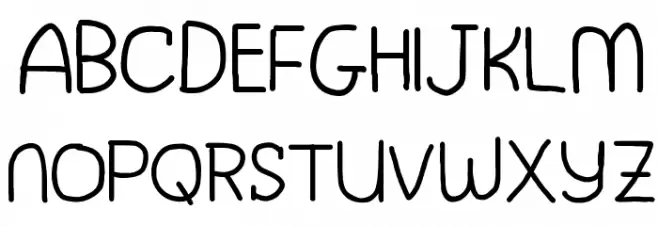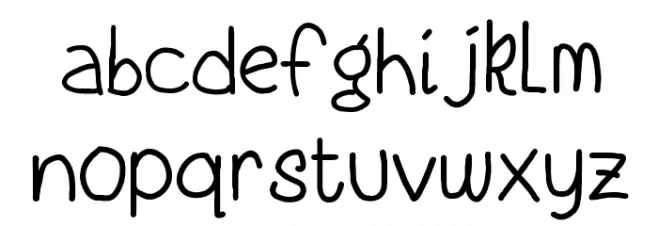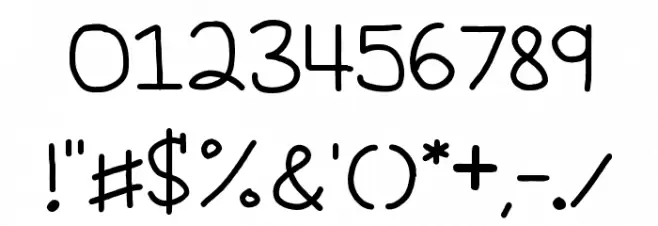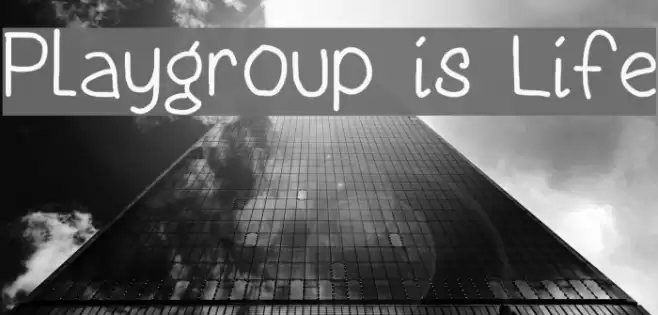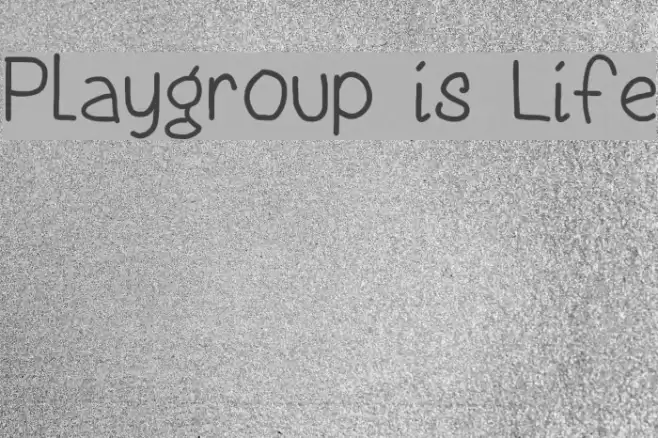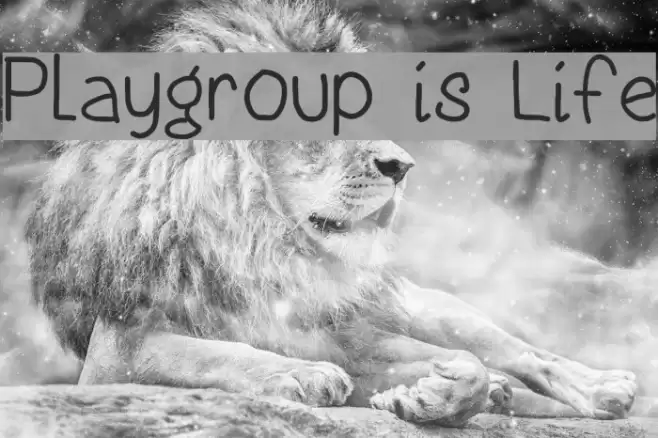
Playgroup is Life
This playful and whimsical font features a handwritten style with rounded edges and a casual, friendly appearance. The characters are slightly irregular, giving it a charming and approachable feel. The uppercase and lowercase letters maintain a consistent height, while the numbers and special characters are designed to complement the overall style. This font is perfect for projects that require a fun and informal touch, such as children's books, playful branding, or creative invitations. Its unique style makes it stand out, while still being legible and versatile.
A playful, handwritten font with rounded edges and a whimsical style.
- Proposed Projects: Ideal for children's books, playful branding, creative invitations, and casual designs.
- Overall Style: Playful
- Use Case: Headlines, Logos, Invitations